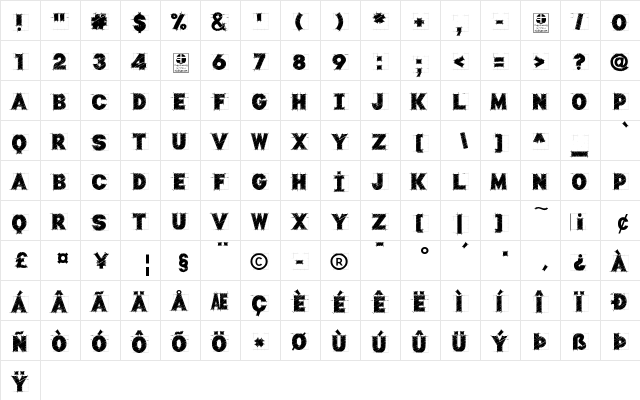
Typo Draft Demo Regular
| Foundry | StudioTypo |
| Designer | Mehmet Abac |
Design Context for Typo Draft Demo Typeface
Typo Draft Demo is a composed and adaptable typeface that performs quietly and consistently across a wide range of design contexts.